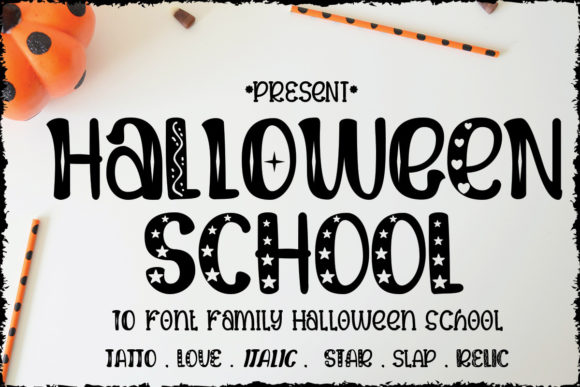
Embark on a spellbinding adventure with Halloween School Font, a magical display font that will cast a captivating charm over your creative projects. This enchanting font, conjured by the skilled hands of jehansyah251, exudes a whimsical and playful spirit, making it an irresistible choice for those seeking a font that speaks to the wonders of Halloween.
Step into a world where spooky meets stylish, where each letter dances with a mischievous flair, captivating the eyes of your audience. Halloween School Font's unique character adds a touch of eerie elegance to any design, transforming ordinary text into extraordinary works of art.
With its hauntingly beautiful curves and playfully pointed edges, Halloween School Font possesses a personality that demands attention. Its meticulously crafted glyphs evoke the essence of a haunted holiday, making it the perfect font for conjuring up spine-tingling stories, crafting hair-raising invitations, or adding a touch of spooky sophistication to your Halloween-themed projects.
Immerse yourself in the boundless versatility of Halloween School Font. Its magical charm transcends the realm of Halloween, making it an ideal choice for a diverse range of projects that call for a touch of whimsy and intrigue. Unleash your creativity and let this font cast its spell on everything from birthday cards and party invitations to posters, flyers, and social media graphics.
Halloween School Font is not just a font; it's an experience that will transport you to a world of enchantment and wonder. Its captivating curves, playful strokes, and mesmerizing details will leave your audience spellbound. Embrace the magic of this font and watch as your designs transform into captivating masterpieces that will linger in the minds of your audience long after they've seen them.